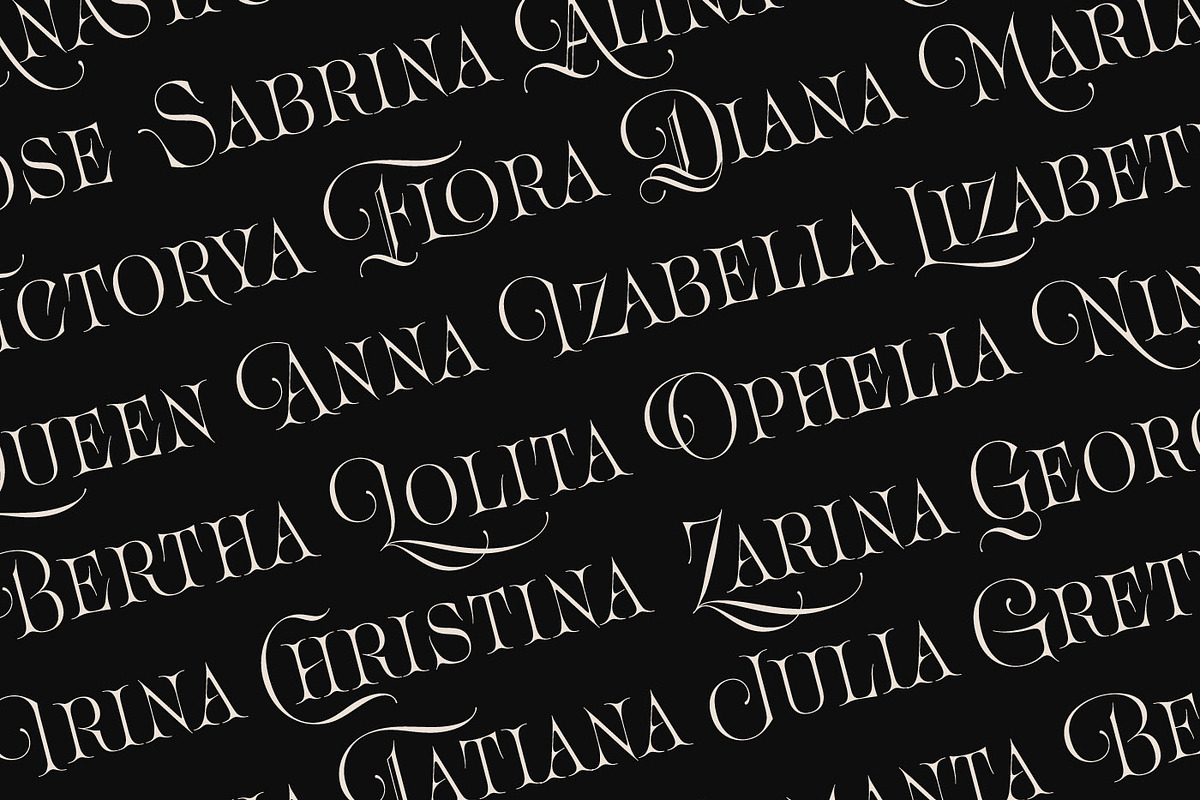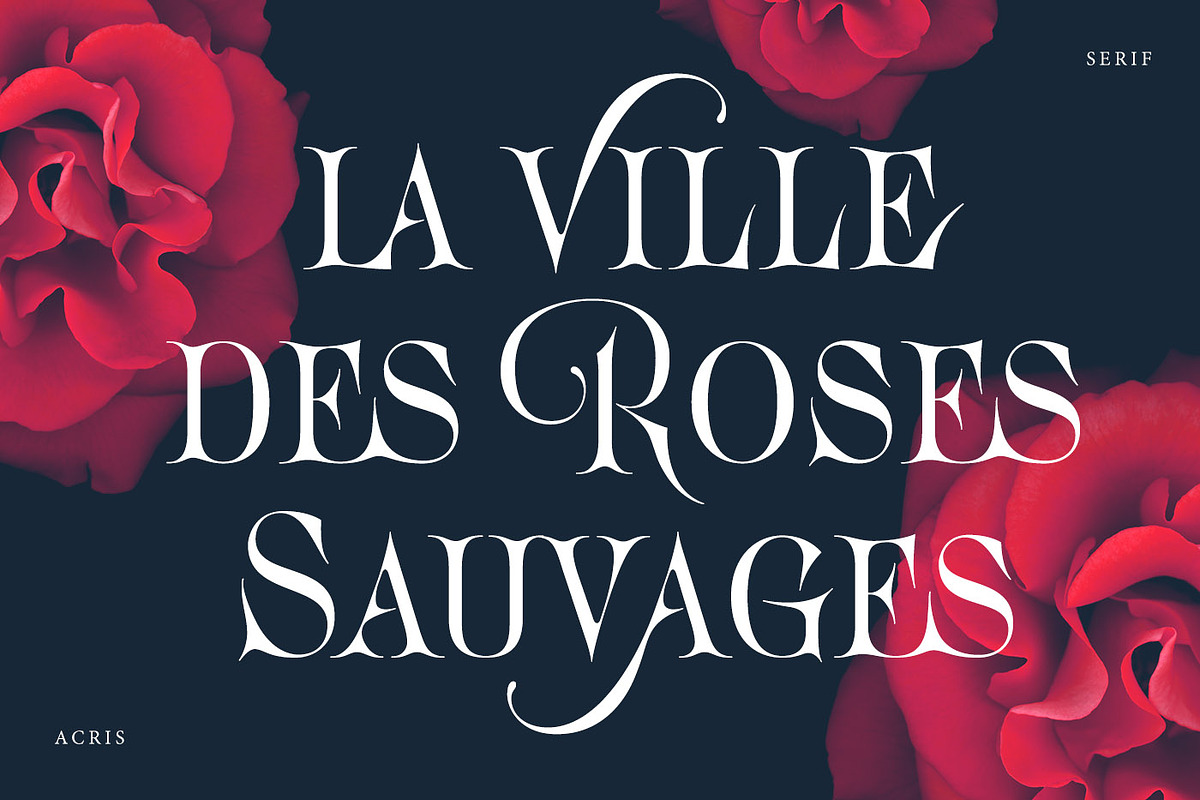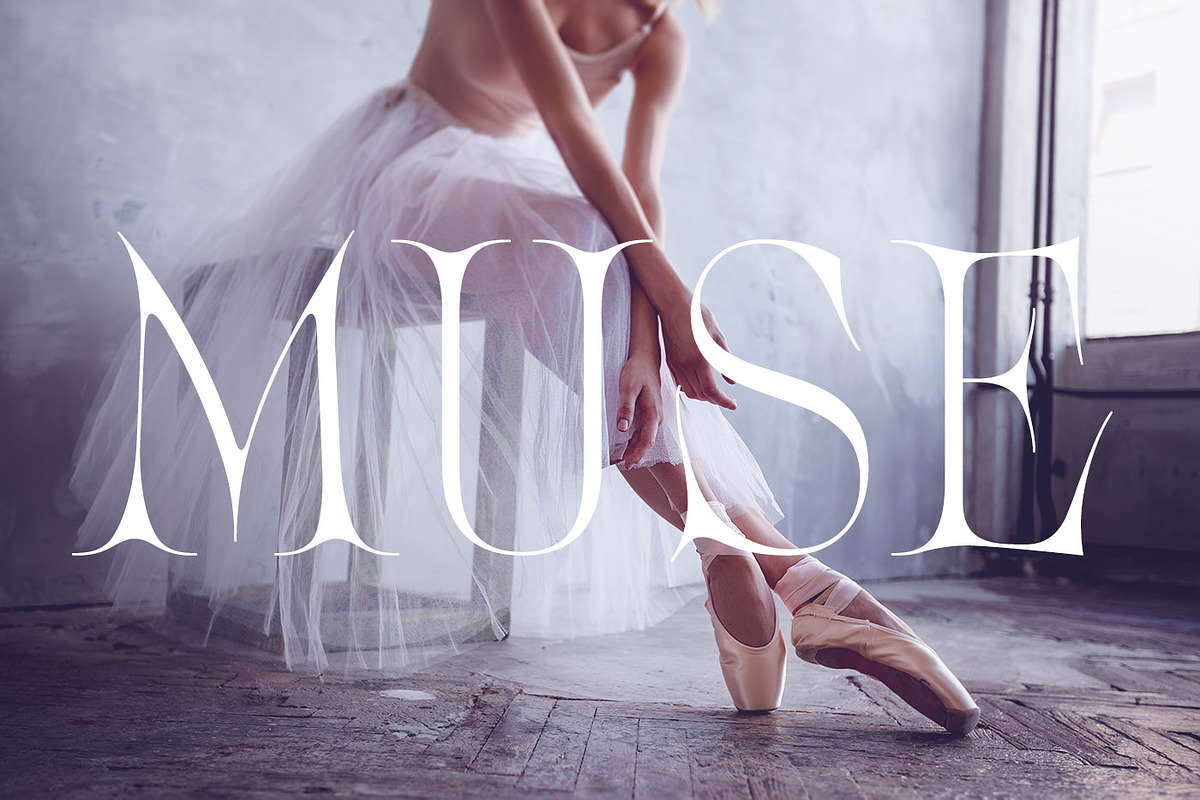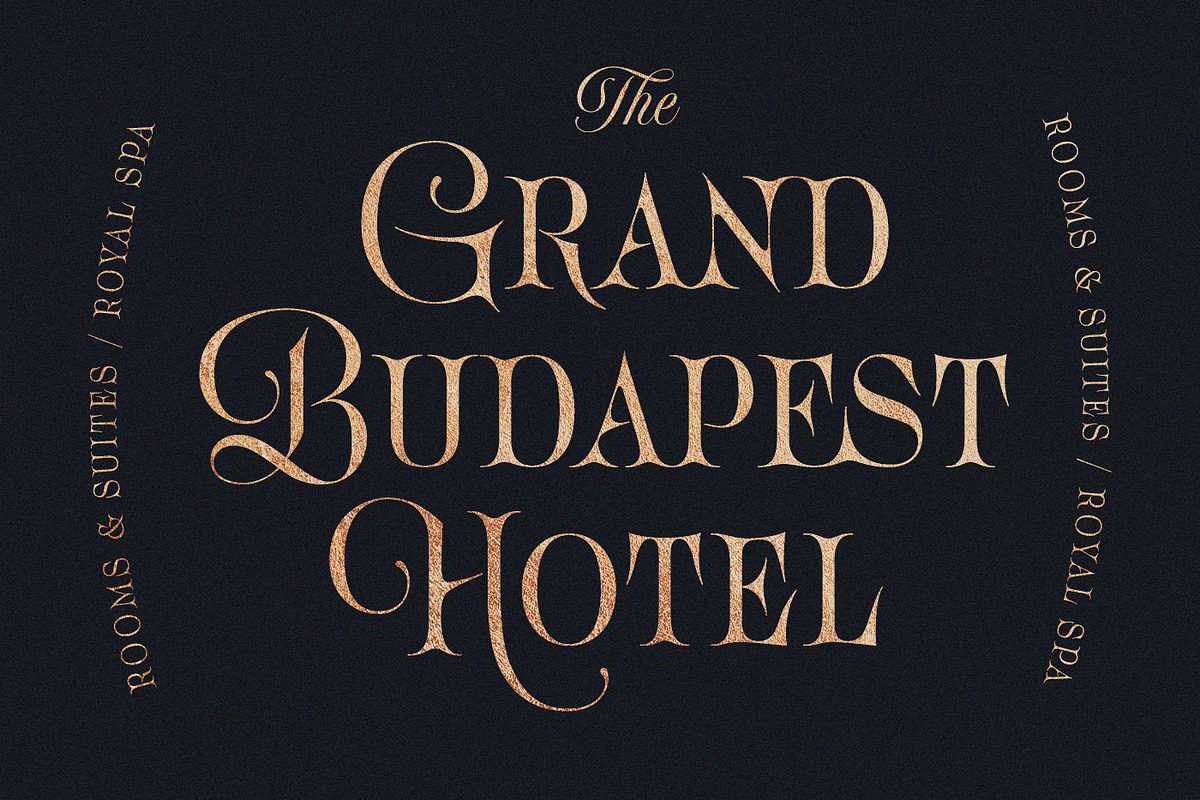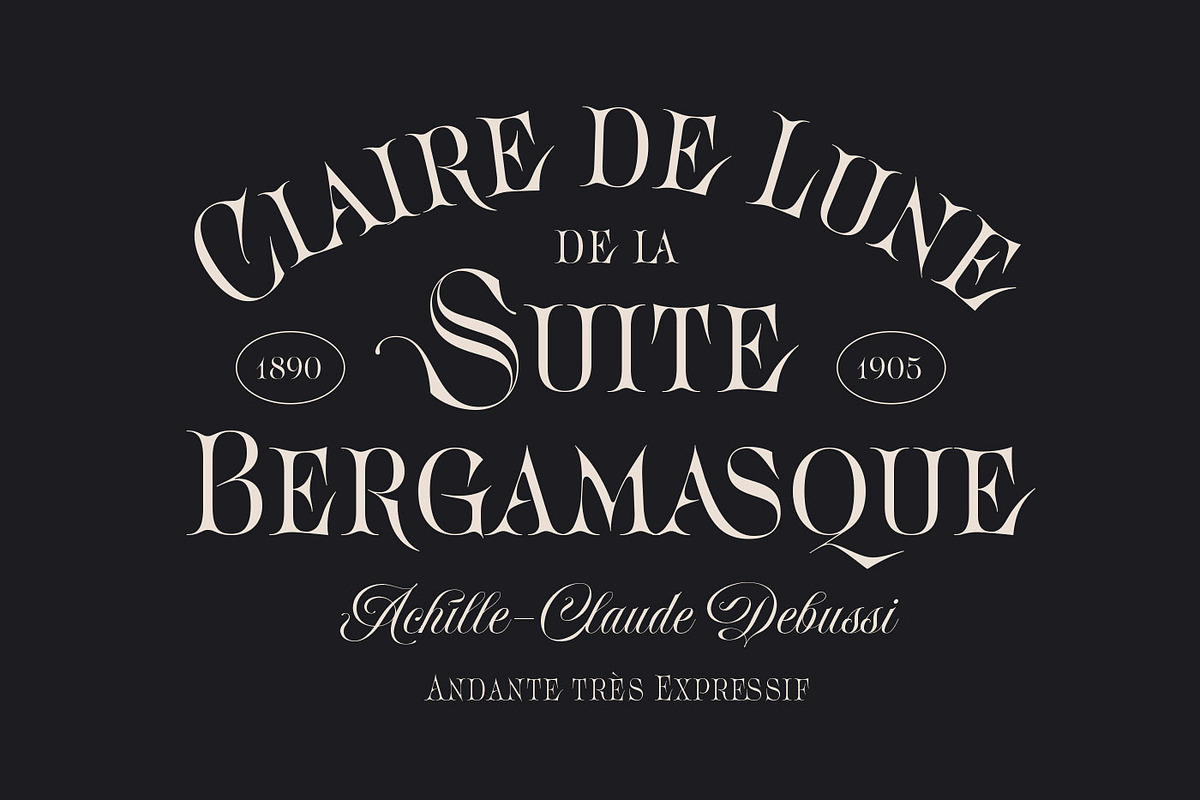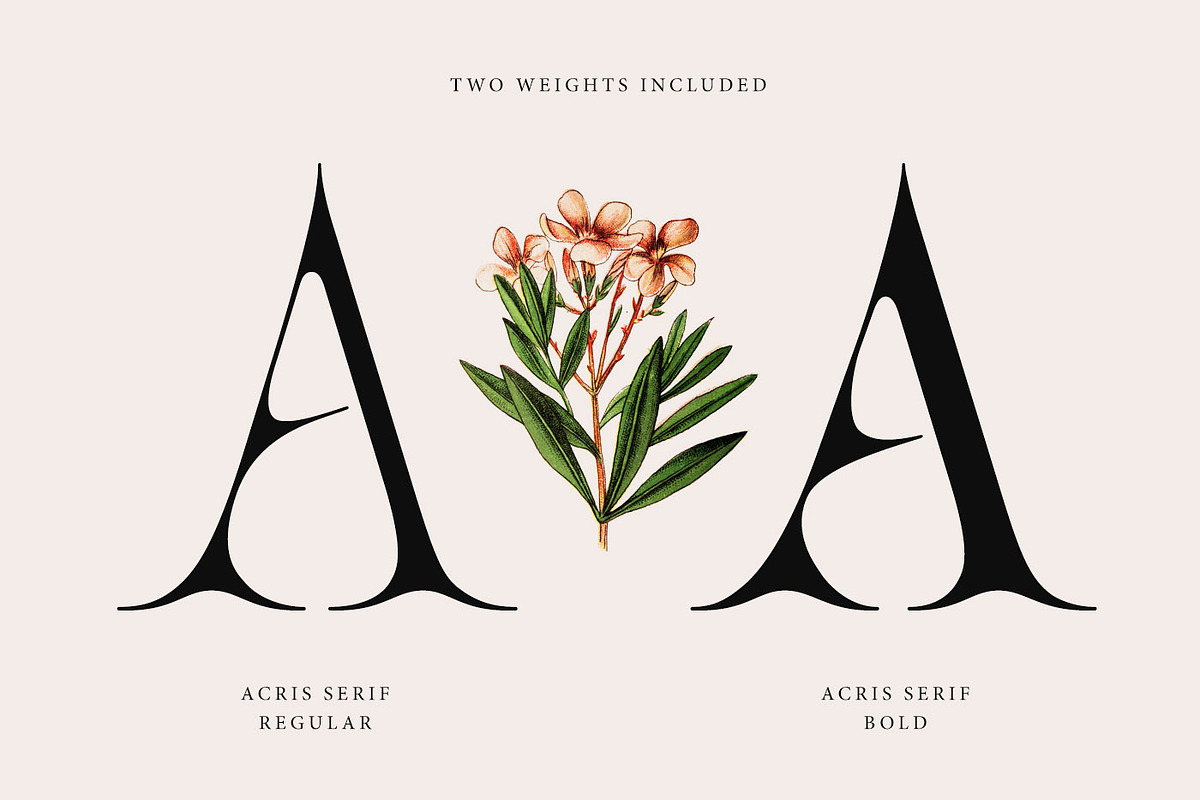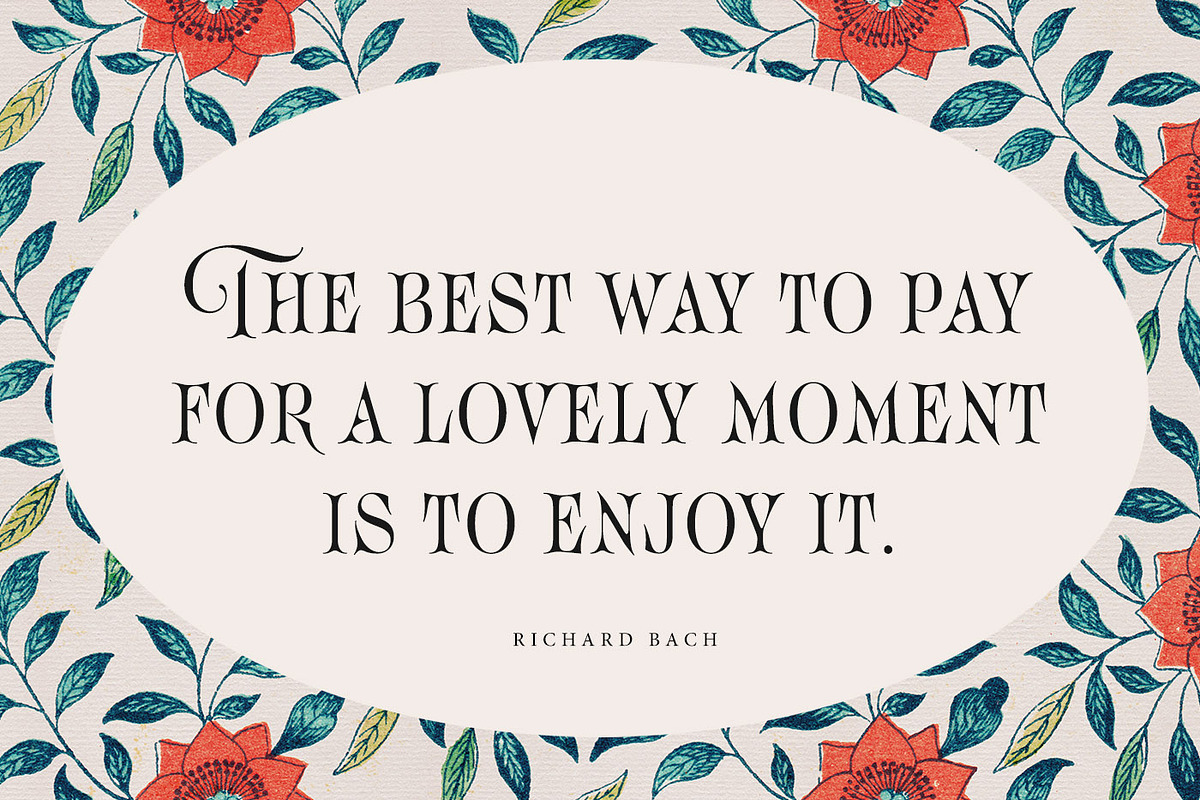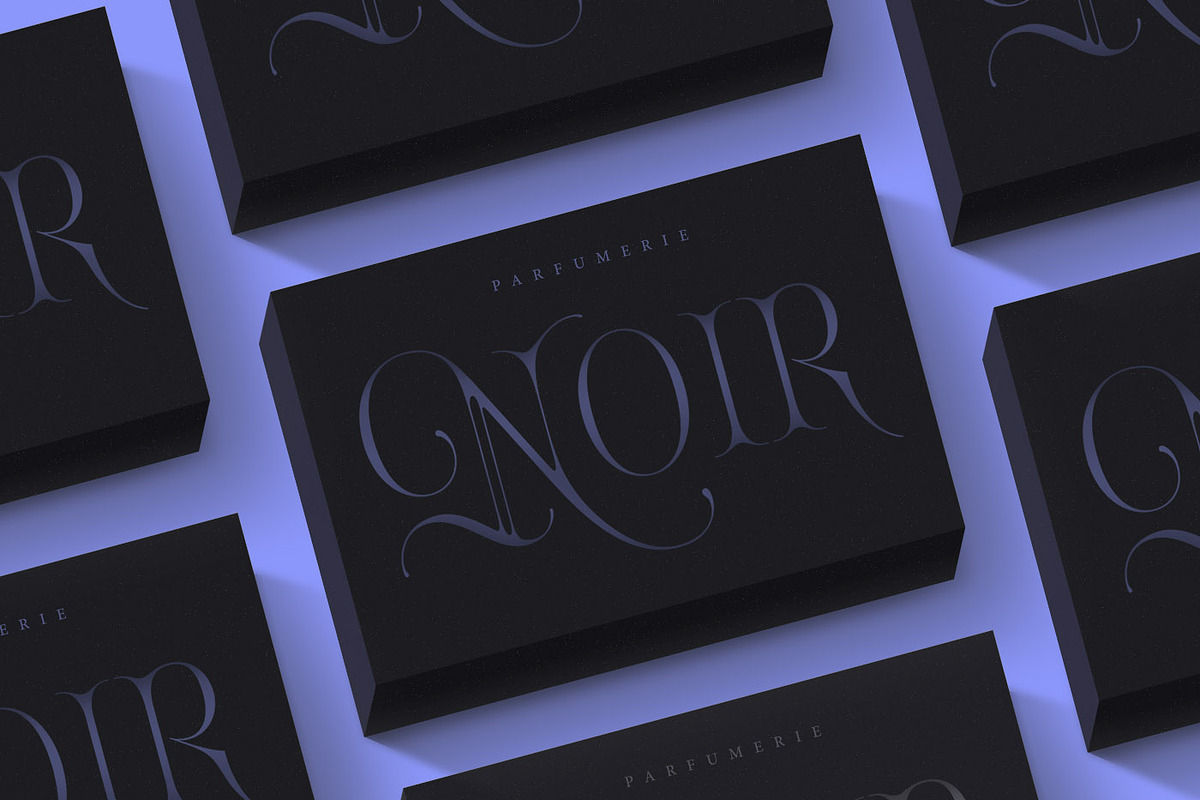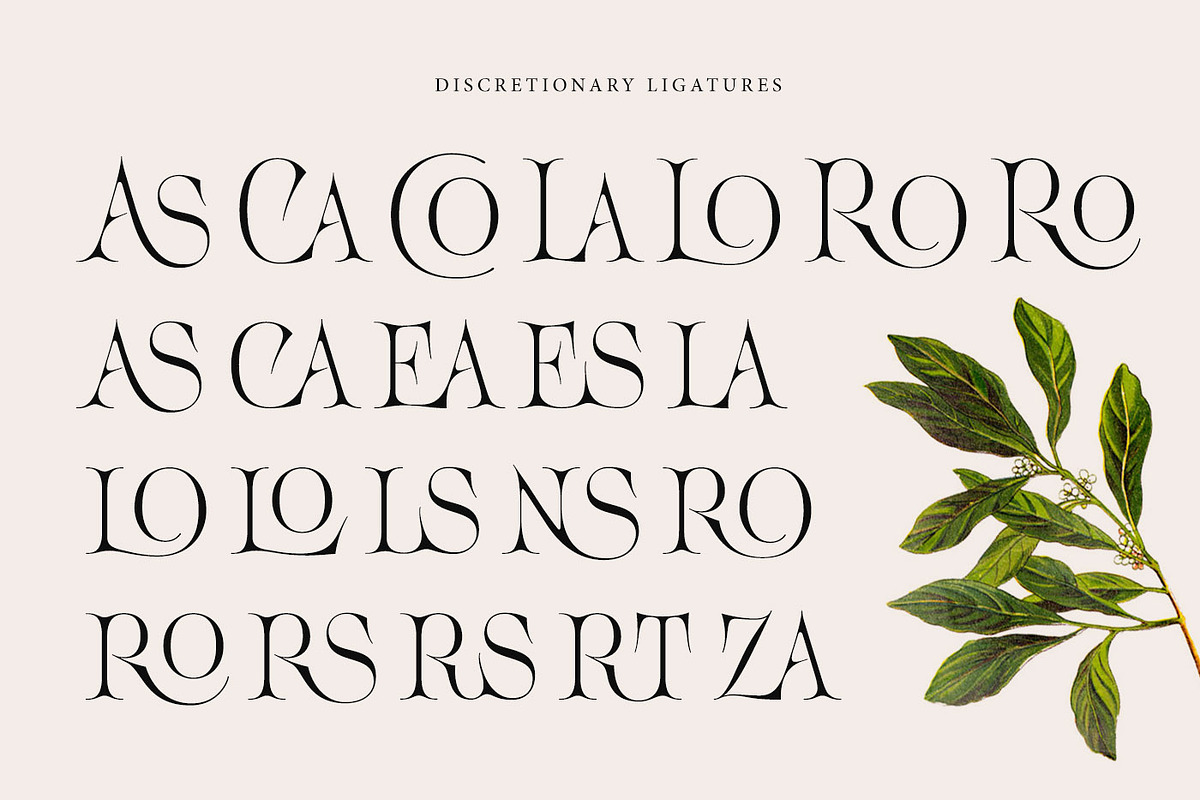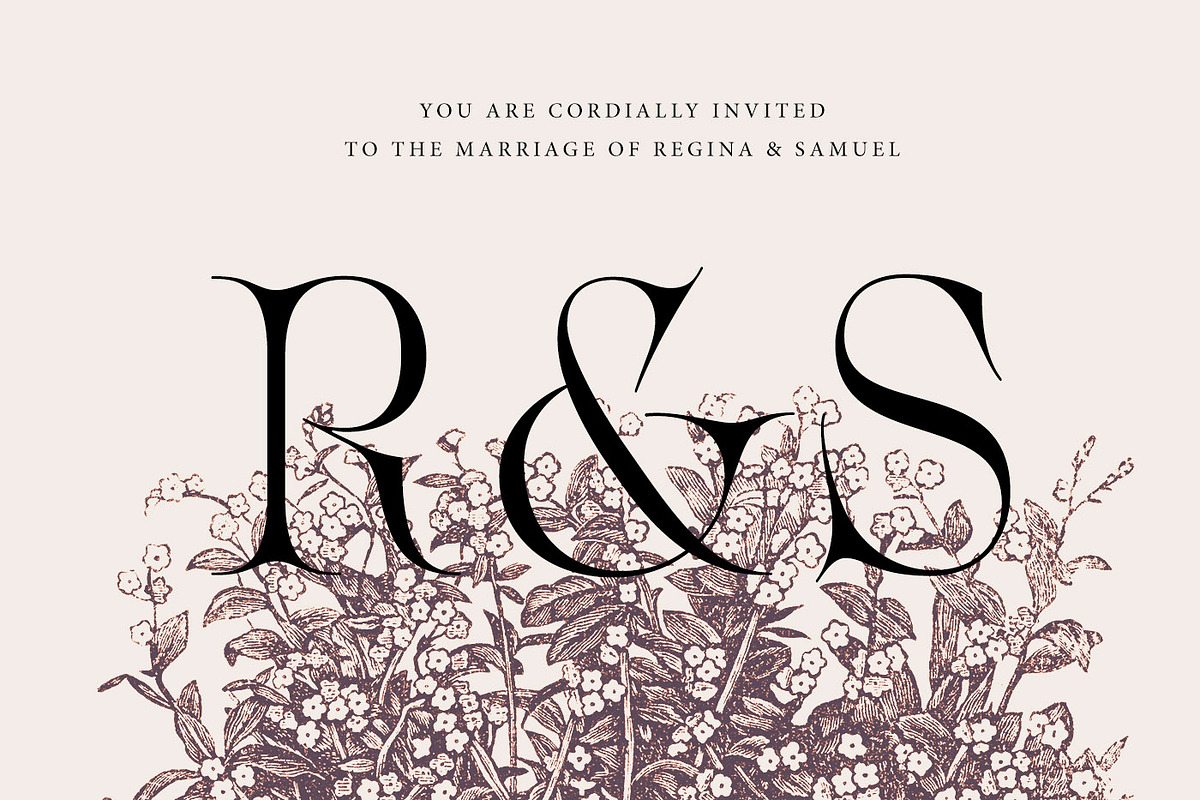
Acris Serif
Acris Serif is the rich and gracefull font designed in two weights for expressive and luxury projects.
If it's had gender, it would be a woman — beautiful but with character like rose with thorns. Acris Serif is very good looking in Big Titles, Magazine design, Branding, Logotypes, Posters, Wedding invitations, romantic cards and others.
This typeface comes with special features like Stylistic Alternates and Discretionary Ligatures. The easiest way you can get Alternates is to add for example number 2, 3 or 4 after character. For this option be sure that Standard Ligatures bottom is activated in Opentype panel.
Acris support Western European characters and works with following languages: Danish, Dutch, English, Estonian, Faroese, Finnish, French, German, Hungarian, Icelandic, Italian, Norwegian, Polish, Portuguese, Slovene, Spanish, Swedish, Turkish.